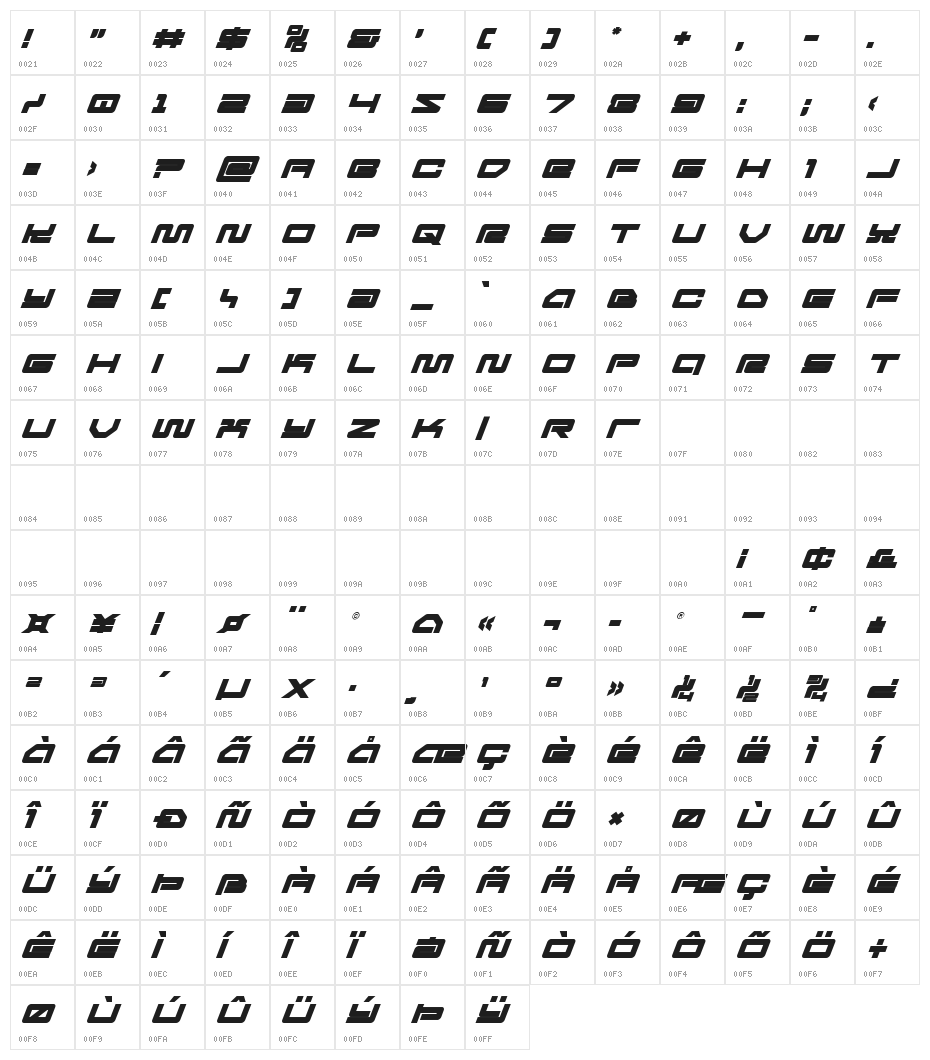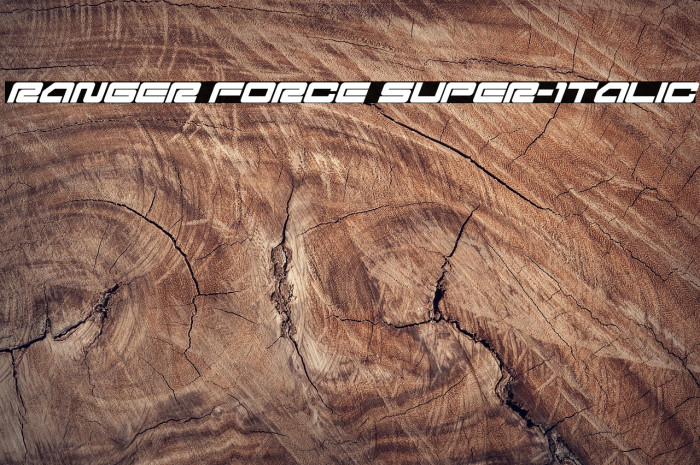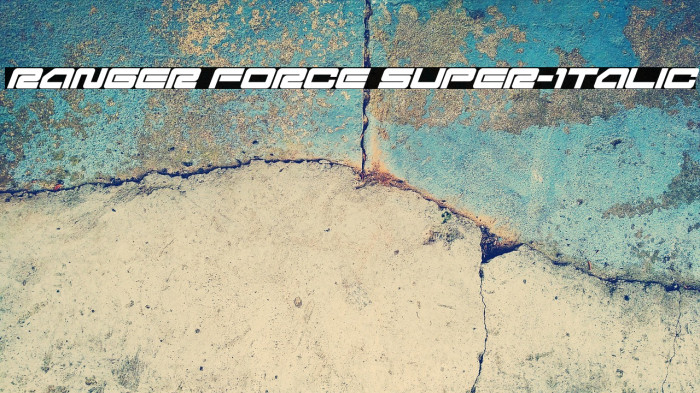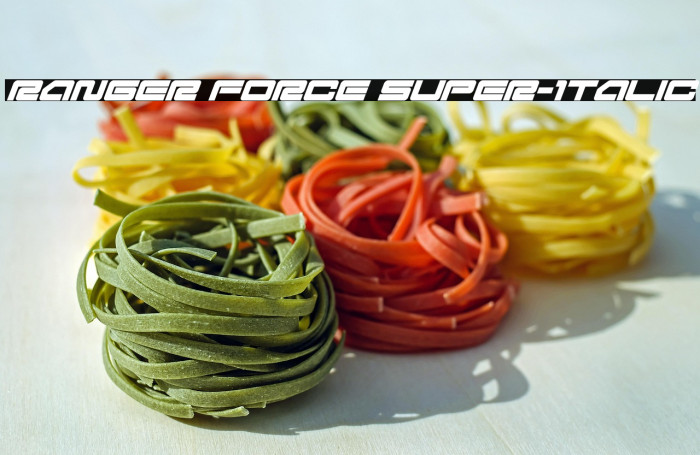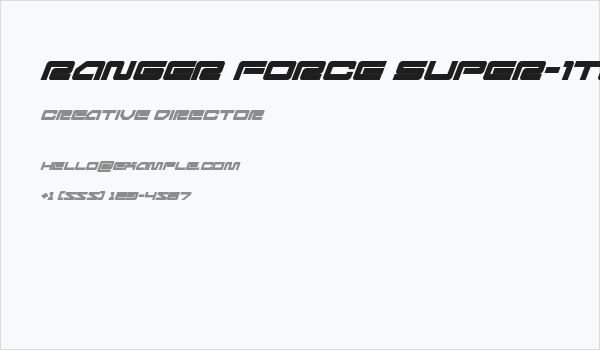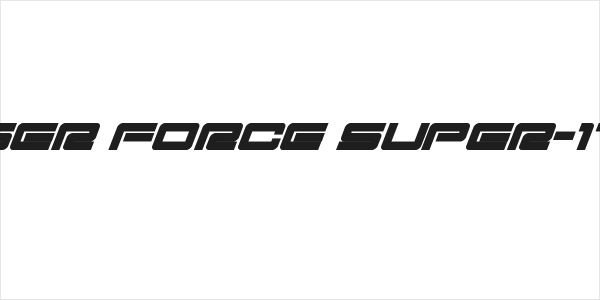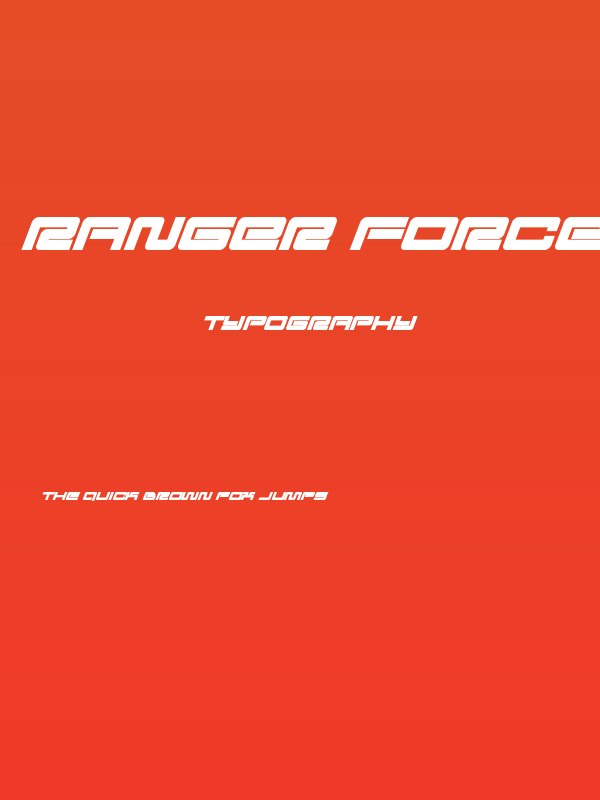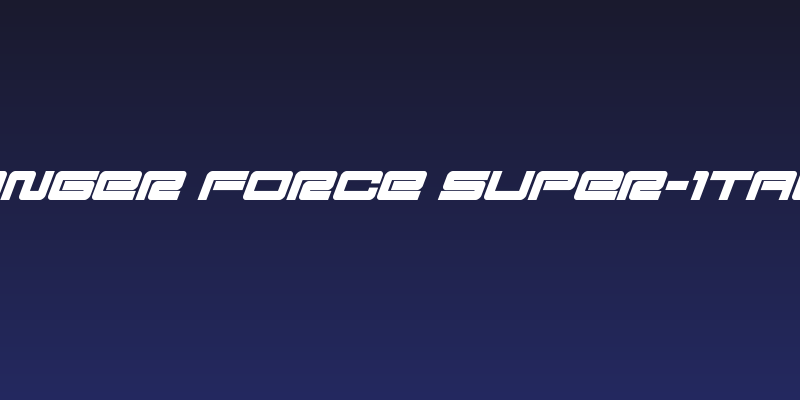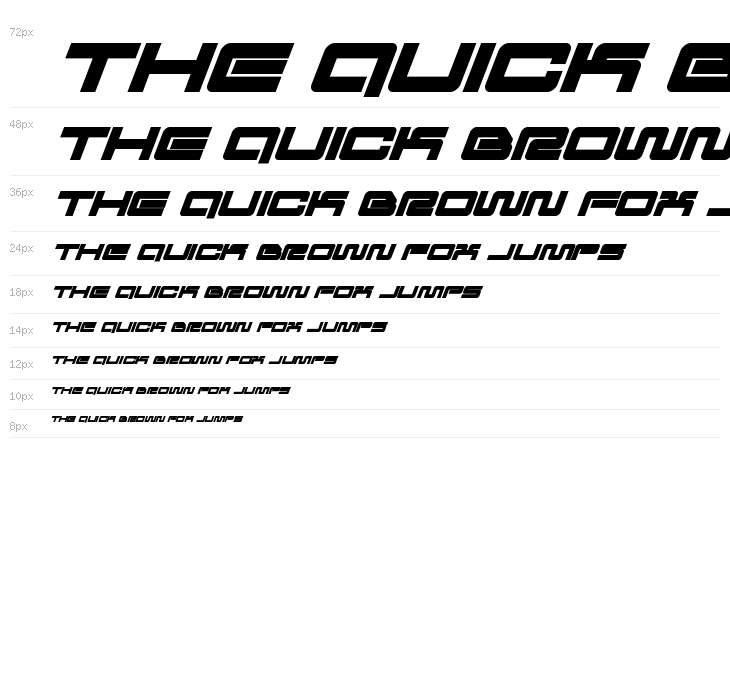
Ranger Force Super-Italic Font
Ranger Force Super-Italic Description
This font features a bold, italicized style with a futuristic and dynamic appearance. The characters are designed with sharp angles and a forward-leaning slant, giving a sense of motion and speed. The uppercase and lowercase letters maintain a consistent geometric structure, while the numerals and special characters align with the overall aesthetic. The font's boldness and unique style make it stand out, ideal for projects that require a strong visual impact.
| Proposed Projects | Ideal for sci-fi themed projects, video game titles, sports branding, and dynamic posters. |